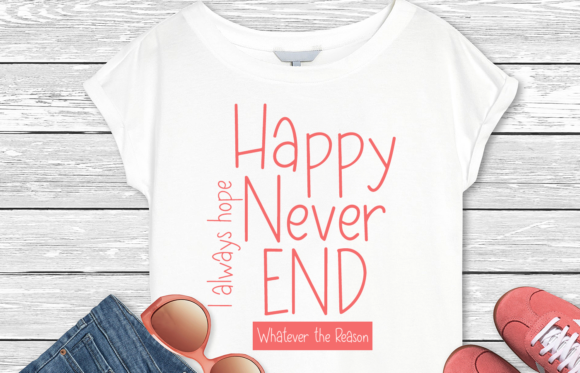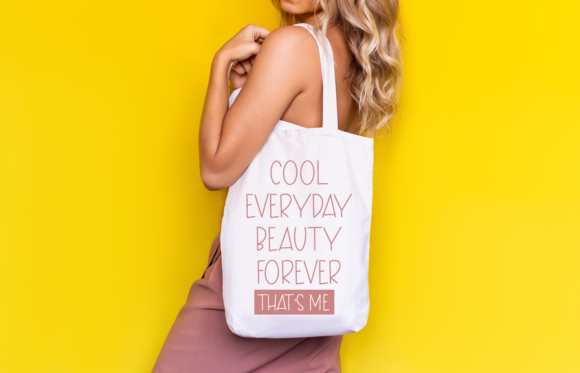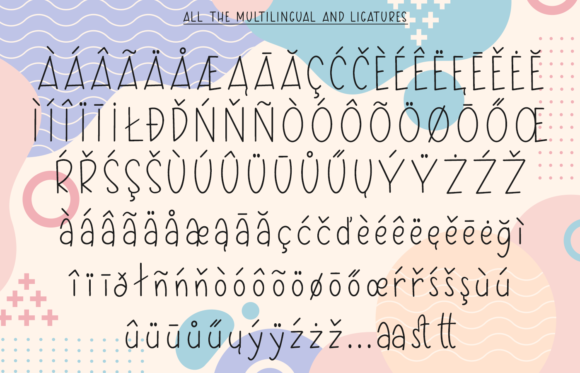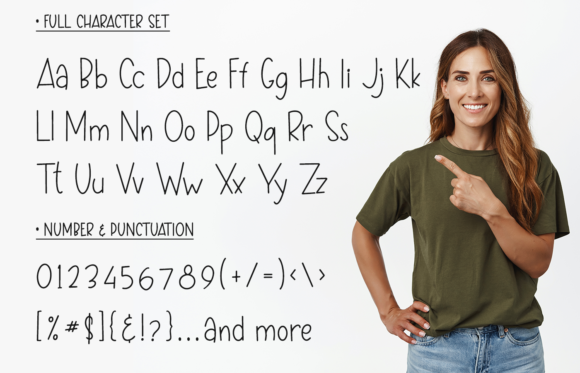
Cwacker Away Font
About Cwacker Away Font
Cwacker Away is a cute and thin lettered handwritten font. Its authentic look will add a personal and realistic feel to your designs. Use this font for your favorite projects and explore its endless possibilities.